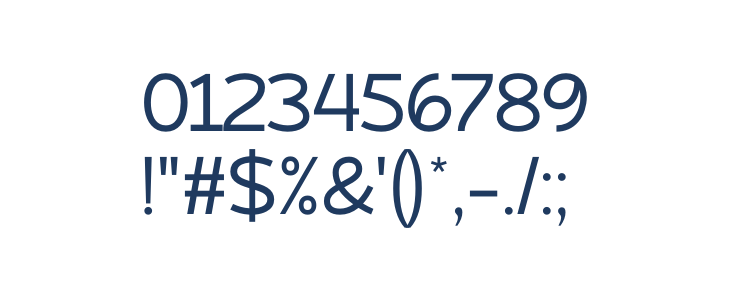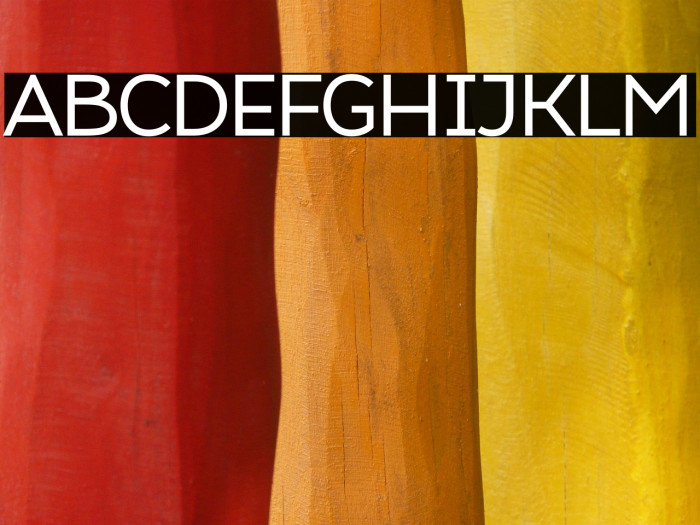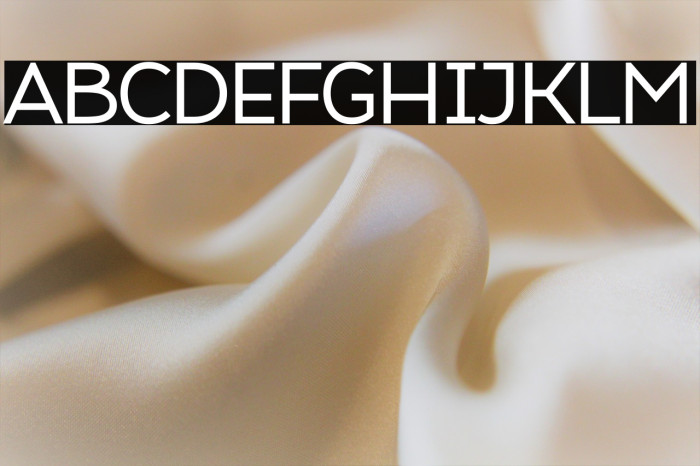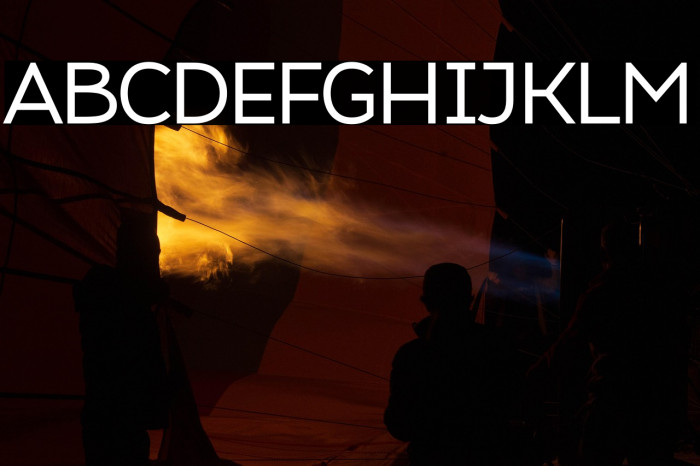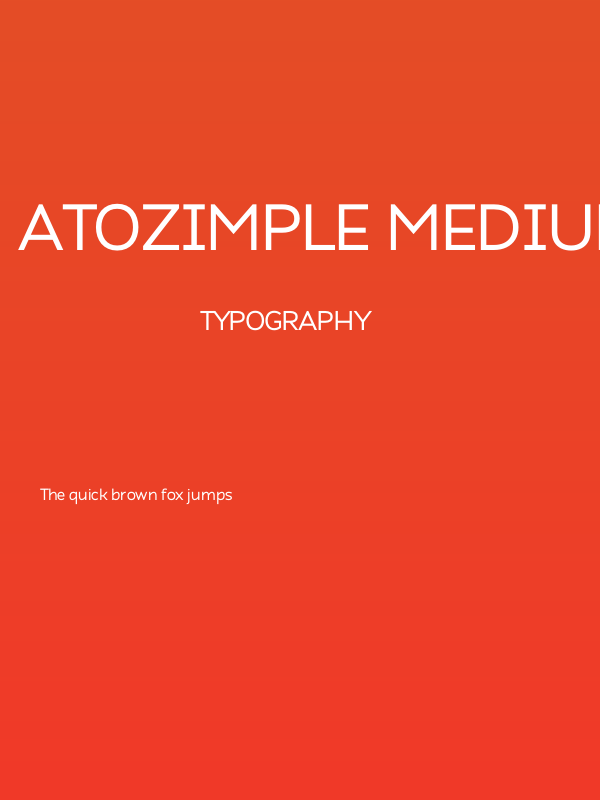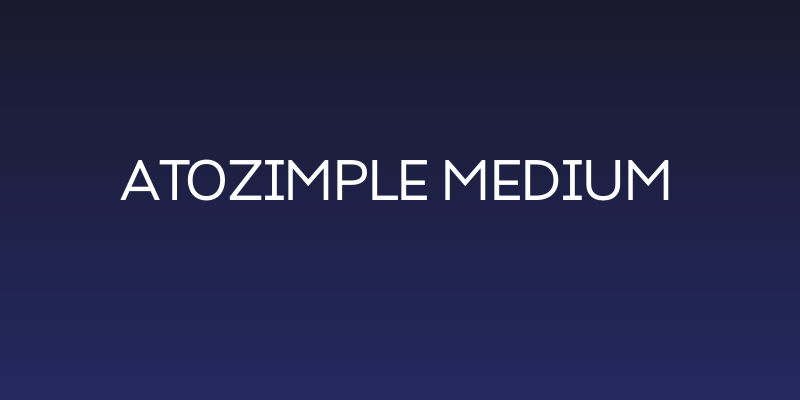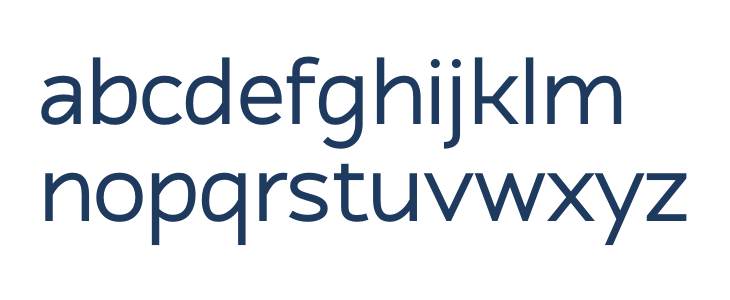
Atozimple Medium Font
Atozimple Medium Description
This font features a clean and modern sans-serif design, characterized by its simplicity and clarity. The letterforms are geometric with even stroke widths, providing a balanced and harmonious appearance. The uppercase and lowercase letters are well-proportioned, making it highly legible across various sizes. The numerals are distinct and easy to read, while the special characters are designed to complement the overall style. This font is versatile, suitable for both digital and print media, and can be used effectively in a wide range of design projects.